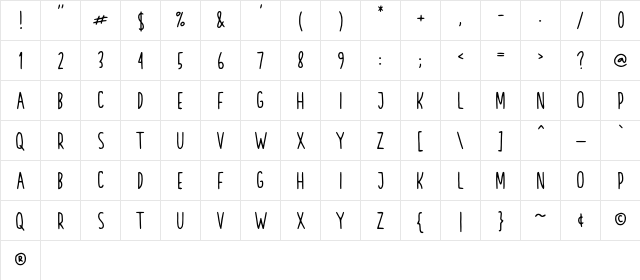
Hinami Regular
Design Context for Hinami Typeface
Hinami offers clean, dependable letterforms without strong stylistic allegiance, making it a practical choice for designers who need flexibility.
Pro Tip: Use Hinami in both headline and body roles to test its range before committing to a single application.